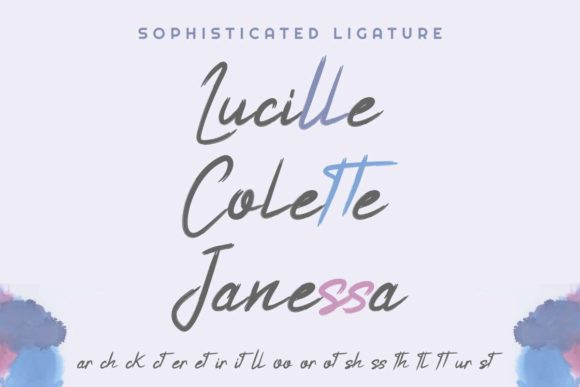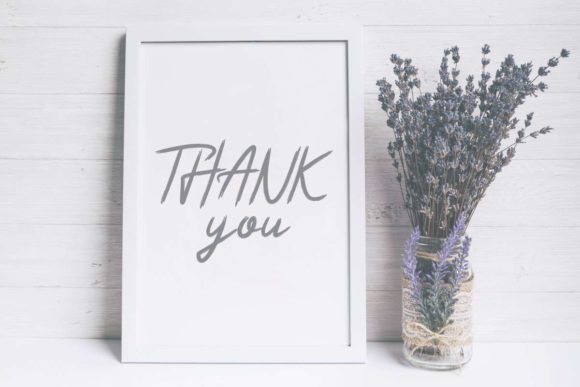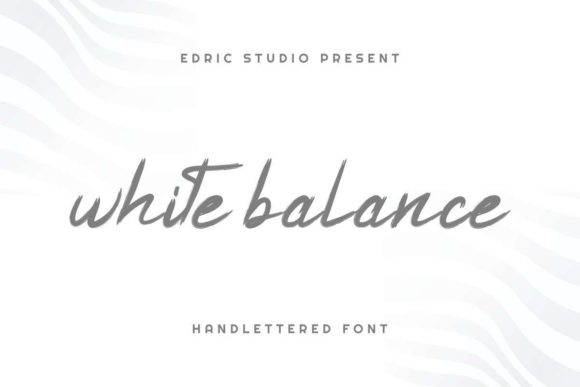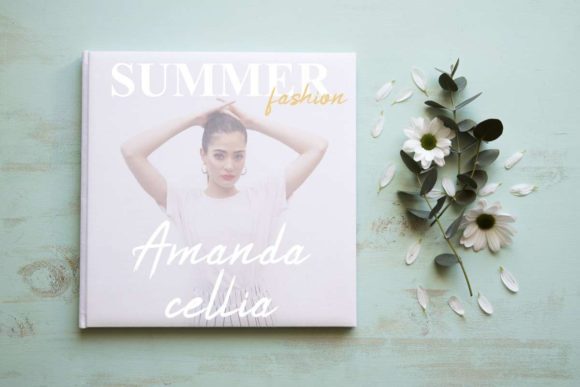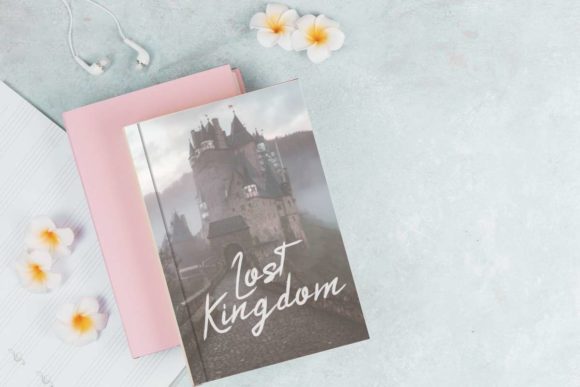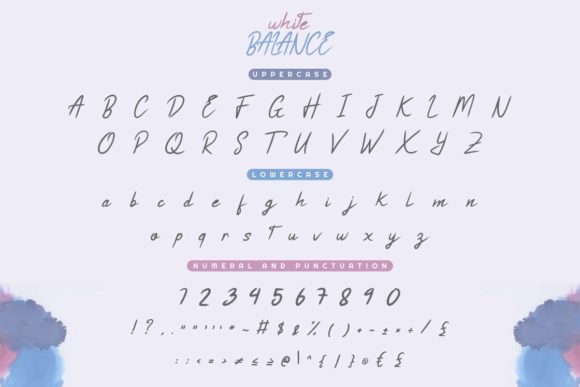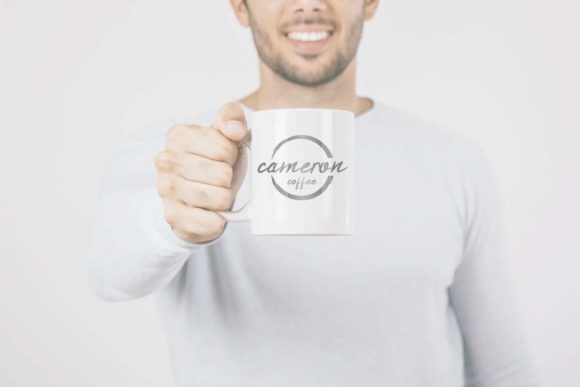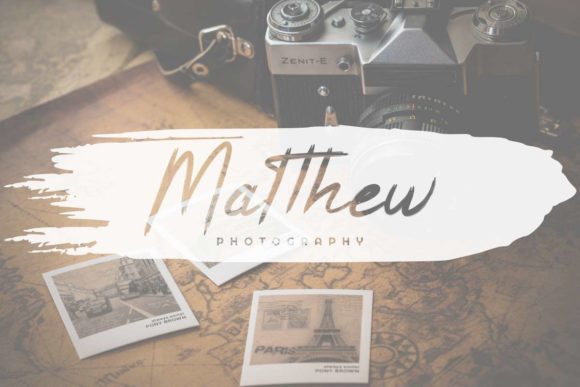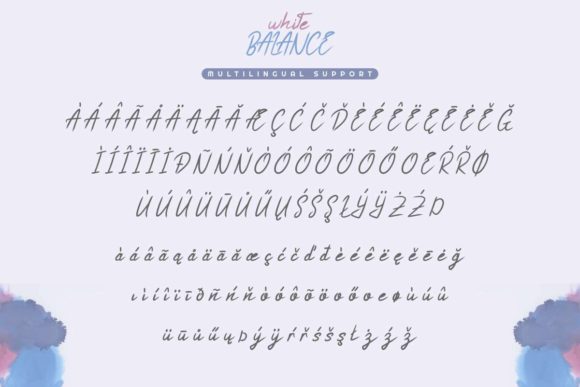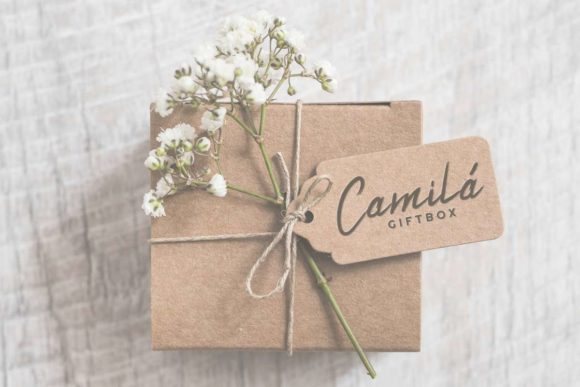
White Balance Font
About White Balance Font
White Balance is a lovely handwritten font, created with the help of an outstanding brush pen. Fall in love with its incredibly versatile style and use it to create gorgeous wedding invitations, beautiful stationary art, eye-catching social media posts, and much more!